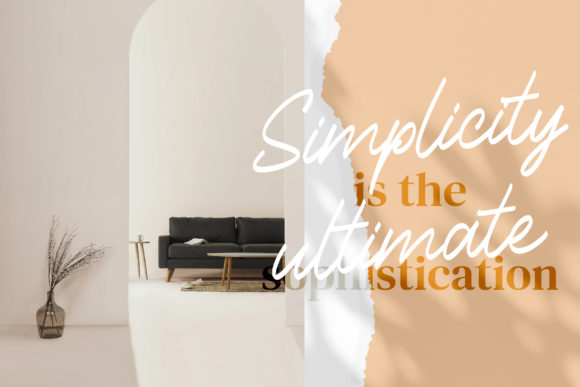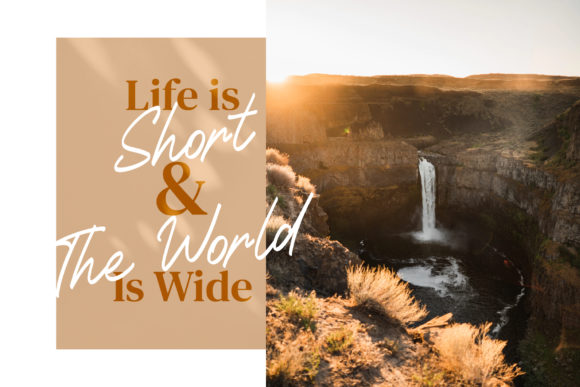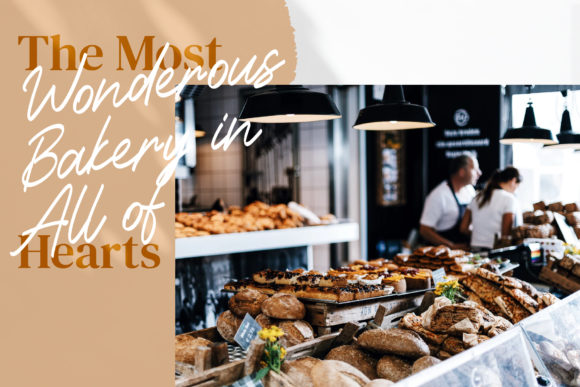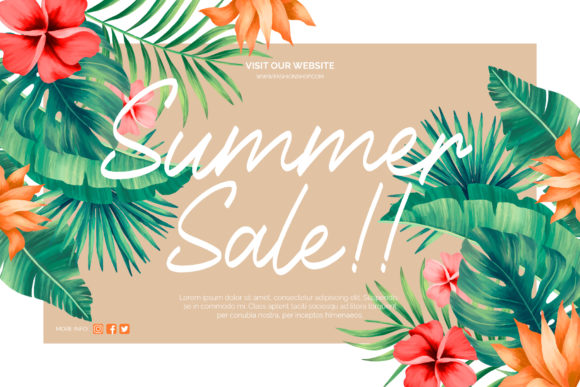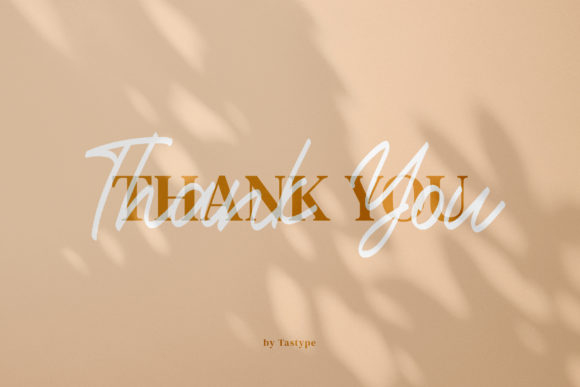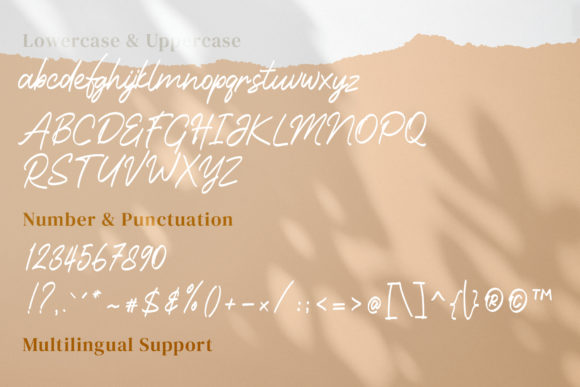
Emerlads Font
About Emerlads Font
Emerlads is a flowing handwritten font, described by an elegant touch, perfect for your favorite projects. Fall in love with its incredibly distinct and timeless style and use it to create spectacular designs!